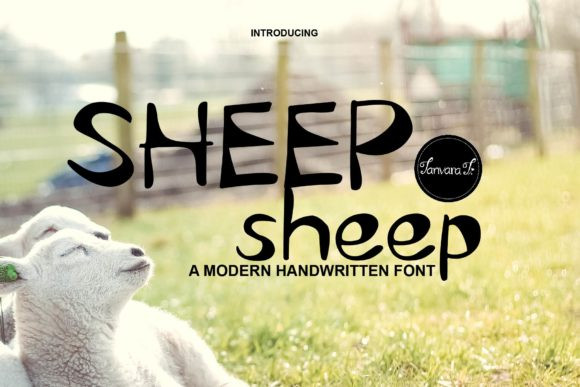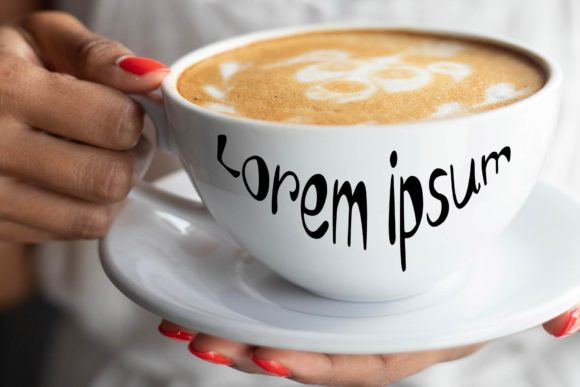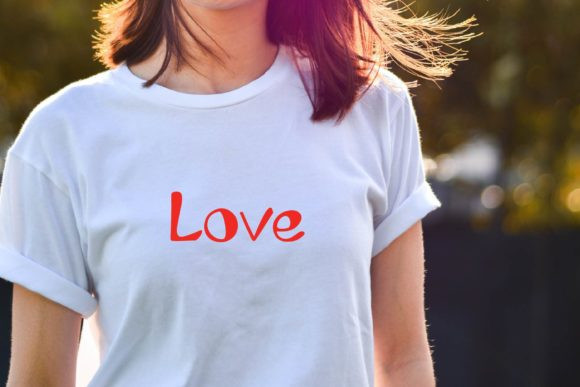
Sheep Sheep Font
Sheep Sheep is a simple and quirky handwritten font. Its natural and unique style makes it incredibly fitting to a large pool of designs. The only limit is your imagination!